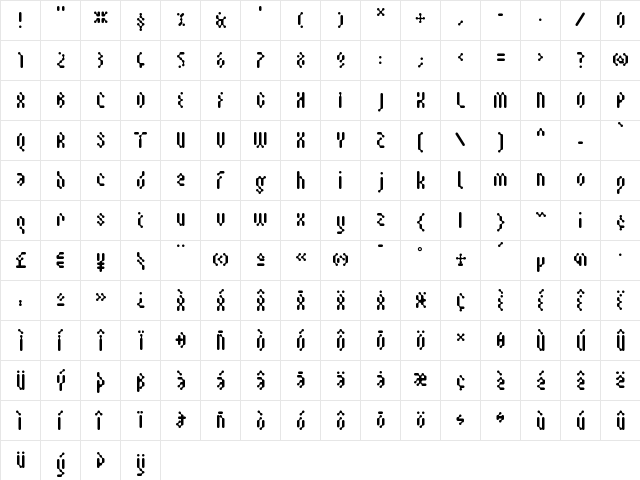
Biot Regular
Design Context for Biot Typeface
Biot is a composed and adaptable typeface that performs quietly and consistently across a wide range of design contexts.